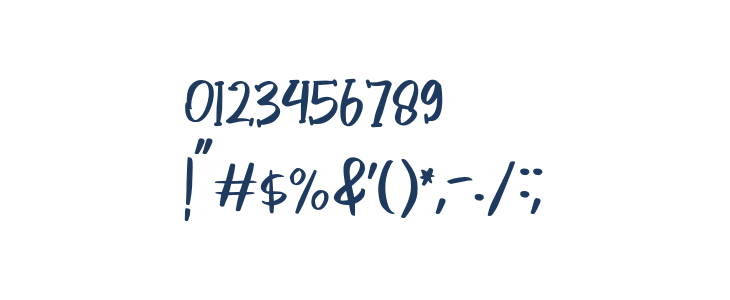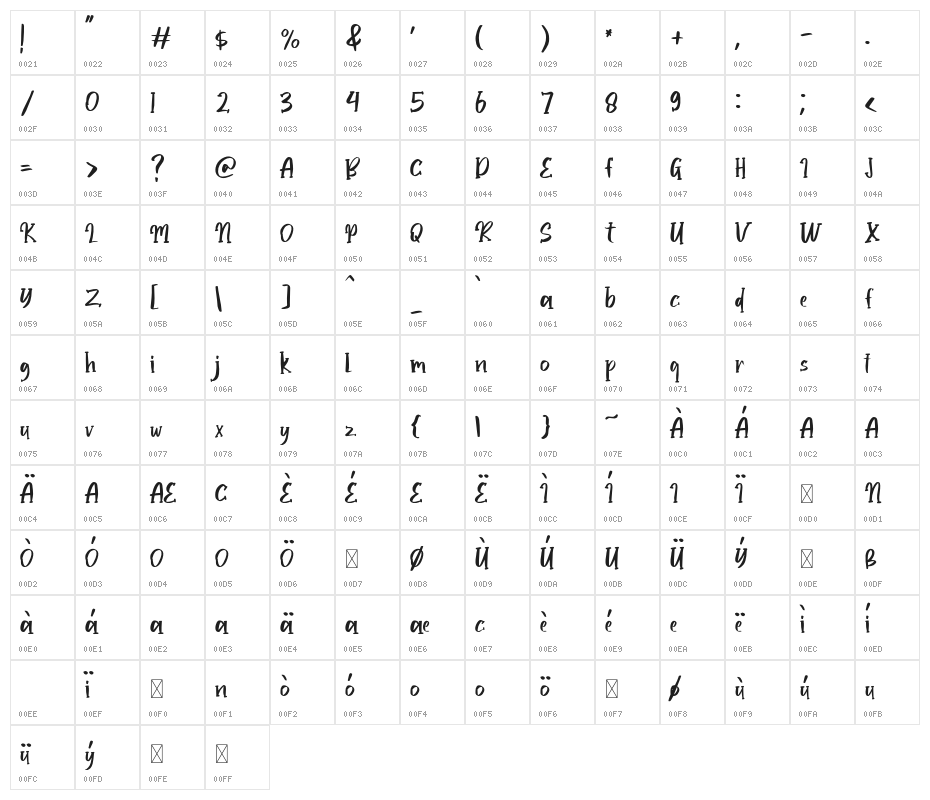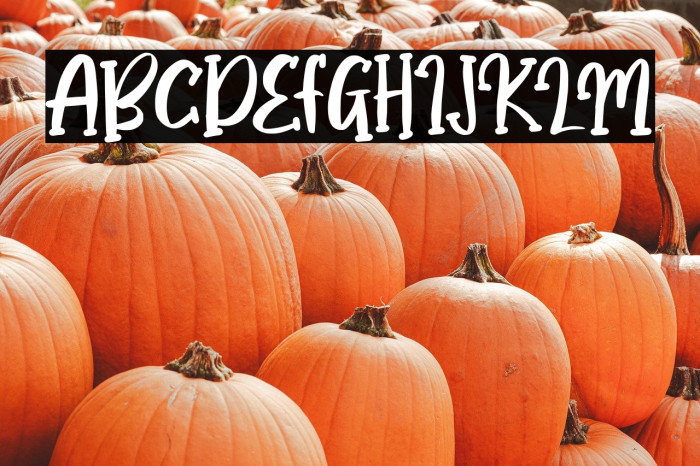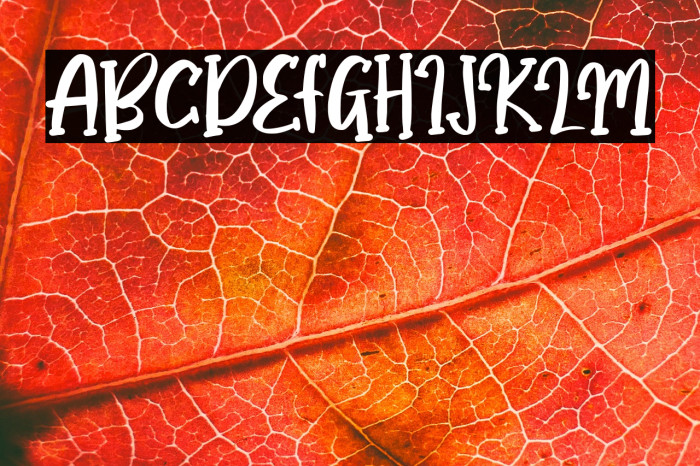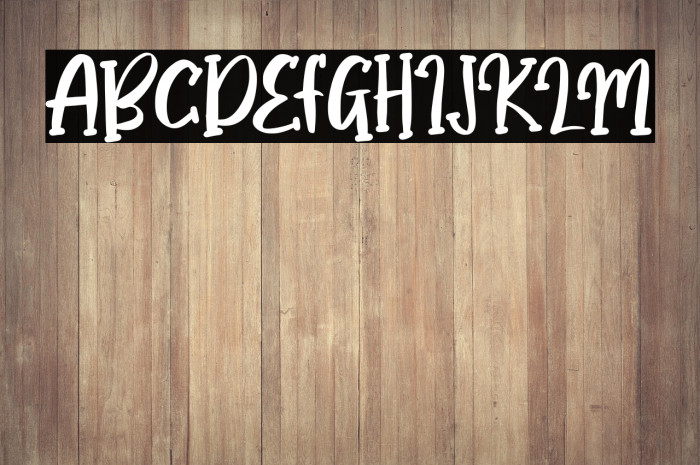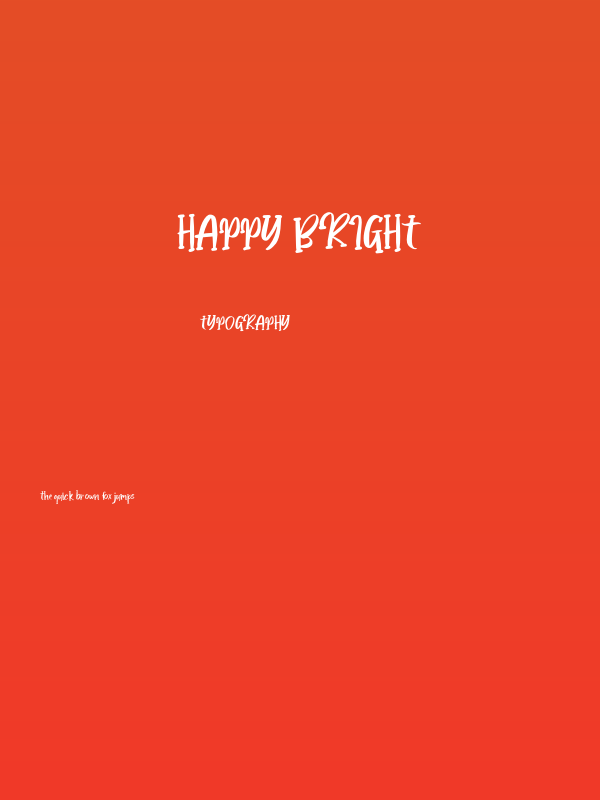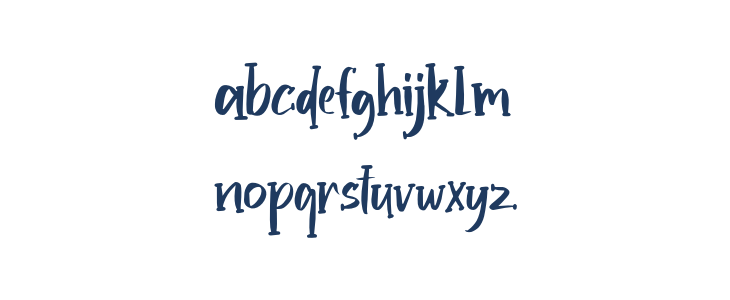
Happy Bright Font
Happy Bright Description
This font features a playful and energetic style, characterized by its handwritten appearance. The letters have a casual, flowing form with slightly irregular strokes, giving it a lively and dynamic feel. The uppercase letters are bold and prominent, while the lowercase letters maintain a consistent rhythm, enhancing readability. The numerals are distinct and easy to distinguish, complementing the overall aesthetic. Special characters are creatively designed, adding to the font's unique charm. This font is perfect for projects that require a personal touch or a sense of fun and creativity.